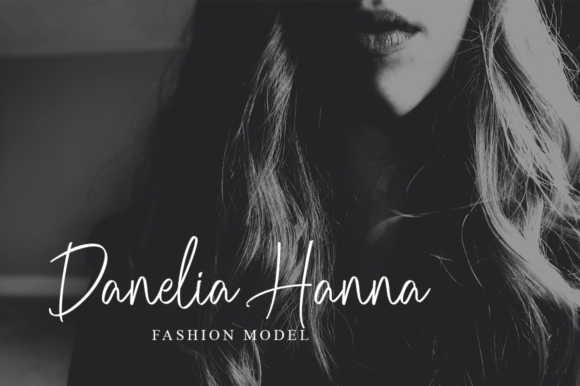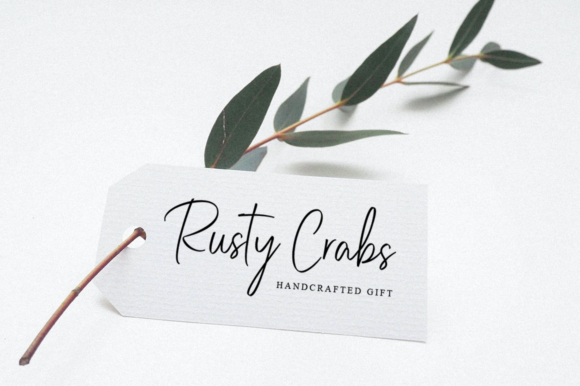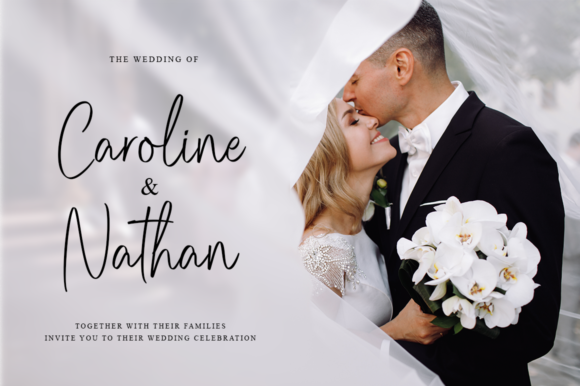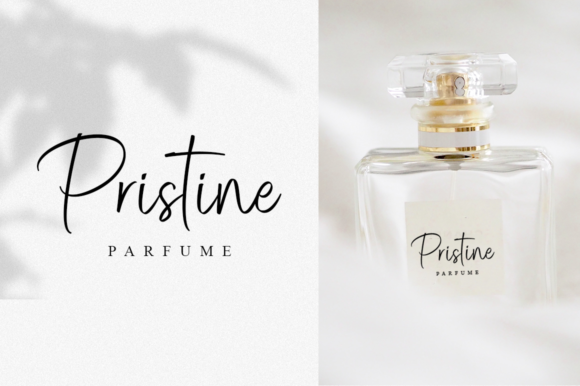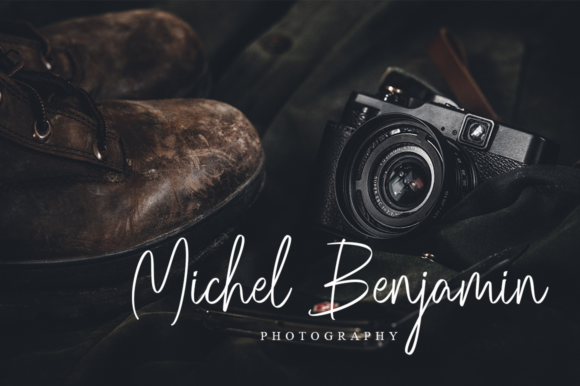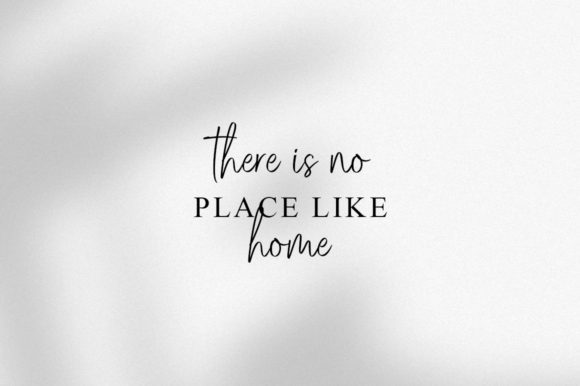
Introducing Angelyn Font: The Perfect Handwritten Touch for Your Designs
Are you looking for a font that adds a personal touch to your designs? Look no further than Angelyn Font, a relaxed and slightly sloppy handwritten font that’s perfect for a variety of creative projects. In this article, we’ll dive into the world of Angelyn Font and explore its features, uses, and benefits for designers and crafters.
What is Angelyn Font?
Angelyn Font is a unique and charming handwritten font that’s designed to bring a touch of personality to your designs. Its relaxed and slightly sloppy style gives it a friendly and approachable feel, making it perfect for projects that require a human touch. Whether you’re creating invitations, thank you cards, quotes, greeting cards, logos, business cards, or any other design that needs a personalized touch, Angelyn Font is the perfect choice.
Key Features of Angelyn Font
So, what makes Angelyn Font so special? Here are some of its key features:
- Handwritten style: Angelyn Font is a handwritten font that’s designed to look like it was written with a pen or pencil. This gives it a personal and unique touch that’s hard to replicate with traditional fonts.
- Relaxed and sloppy: Unlike traditional handwritten fonts, Angelyn Font has a relaxed and slightly sloppy style that gives it a friendly and approachable feel.
- Versatile: Angelyn Font is versatile and can be used for a wide range of creative projects, from invitations and greeting cards to logos and business cards.
- Easy to read: Despite its handwritten style, Angelyn Font is easy to read and understand, making it perfect for designs that require a clear and concise message.
Uses of Angelyn Font
Angelyn Font is perfect for a wide range of creative projects, including:
- Invitations: Whether you’re planning a wedding, birthday party, or baby shower, Angelyn Font is the perfect choice for your invitations.
- Thank you cards: Add a personal touch to your thank you cards with Angelyn Font, making them more special and meaningful.
- Quotes: Use Angelyn Font to add a touch of personality to your quotes, making them more inspiring and motivational.
- Greeting cards: Create beautiful and personalized greeting cards with Angelyn Font, perfect for any occasion.
- Logos: Use Angelyn Font to create a unique and memorable logo for your business or brand.
- Business cards: Add a personal touch to your business cards with Angelyn Font, making them more professional and memorable.
Benefits of Using Angelyn Font
So, why should you use Angelyn Font for your designs? Here are some of its benefits:
- Personal touch: Angelyn Font adds a personal touch to your designs, making them more unique and special.
- Versatile: Angelyn Font is versatile and can be used for a wide range of creative projects, saving you time and effort.
- High-quality: Angelyn Font is a high-quality font that’s designed to look great on any device or medium, ensuring that your designs look professional and polished.
Tips for Using Angelyn Font
Here are some tips for using Angelyn Font effectively in your designs:
- Use it sparingly: While Angelyn Font is beautiful, it’s best to use it sparingly to avoid overwhelming your design. Use it for headings or key messages, and pair it with a simpler font for body text.
- Experiment with colors: Angelyn Font looks great in a variety of colors, so don’t be afraid to experiment and find the perfect color for your design.
- Pair it with other fonts: Angelyn Font can be paired with other fonts to create a unique and interesting design. Try pairing it with a bold font for headings or a script font for added elegance.
| Author | Suby Studio |
Angelyn Font is a beautiful and versatile handwritten font that’s perfect for adding a personal touch to your designs. With its relaxed and slightly sloppy style, it’s ideal for a wide range of creative projects, from invitations and greeting cards to logos and business cards. Whether you’re a designer or crafter, Angelyn Font is a great choice for anyone looking to add a touch of personality to their designs. So why not give it a try and see the difference it can make?